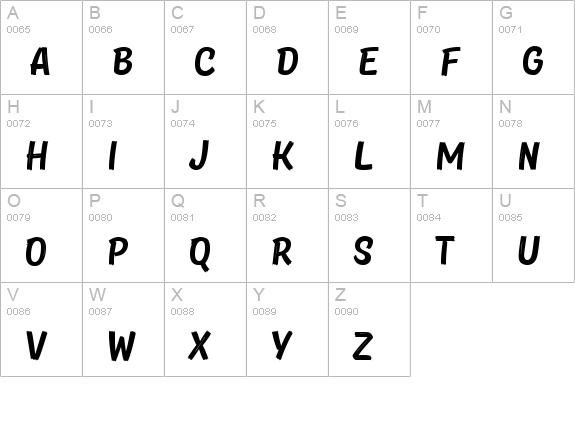
TT Masters Birds Bold is a strong, high-contrast variant in the TT typeface family \xE2\x80\x94 well suited to headlines, attention-grabbing titles, and strong calls-to-action.